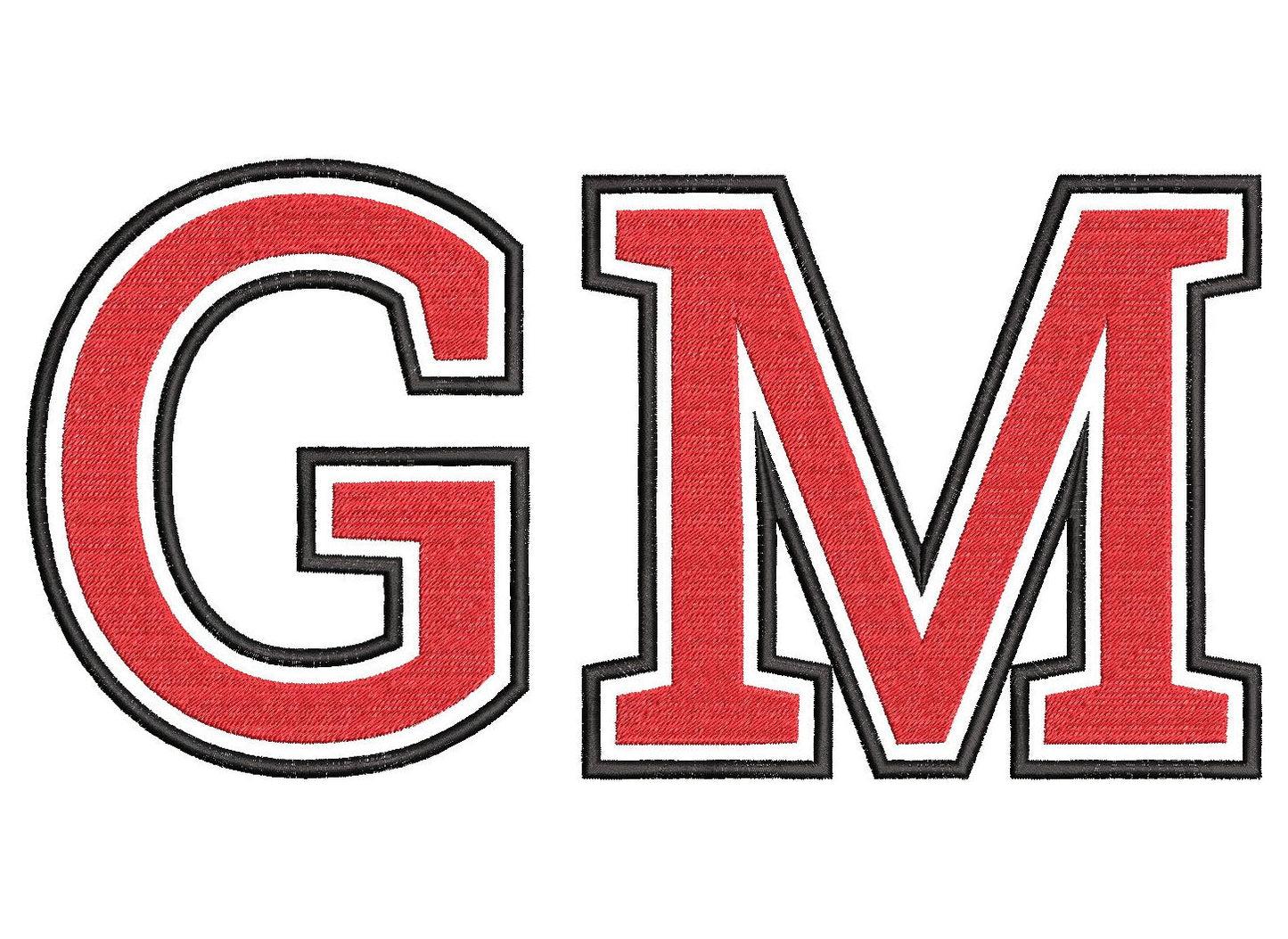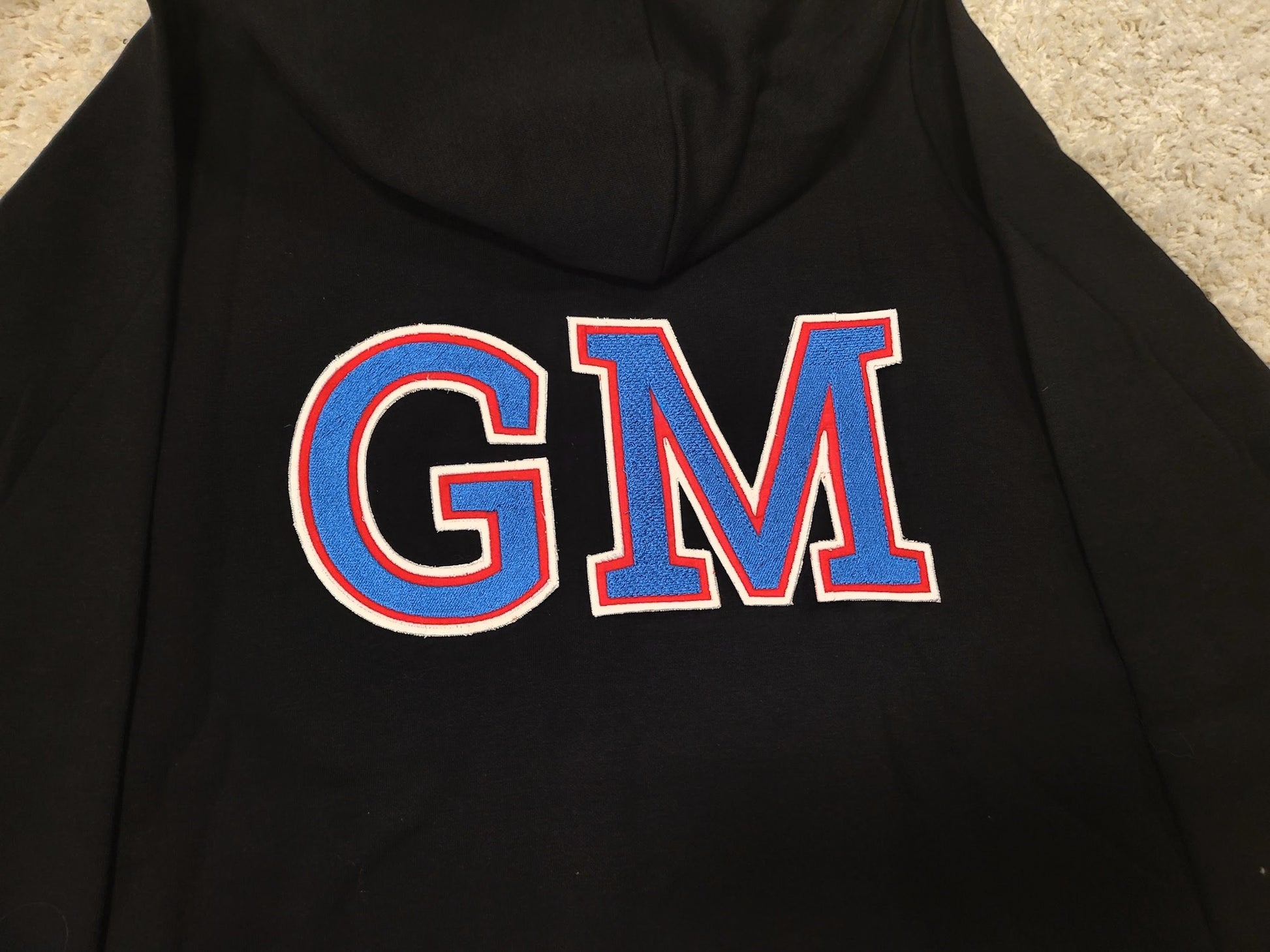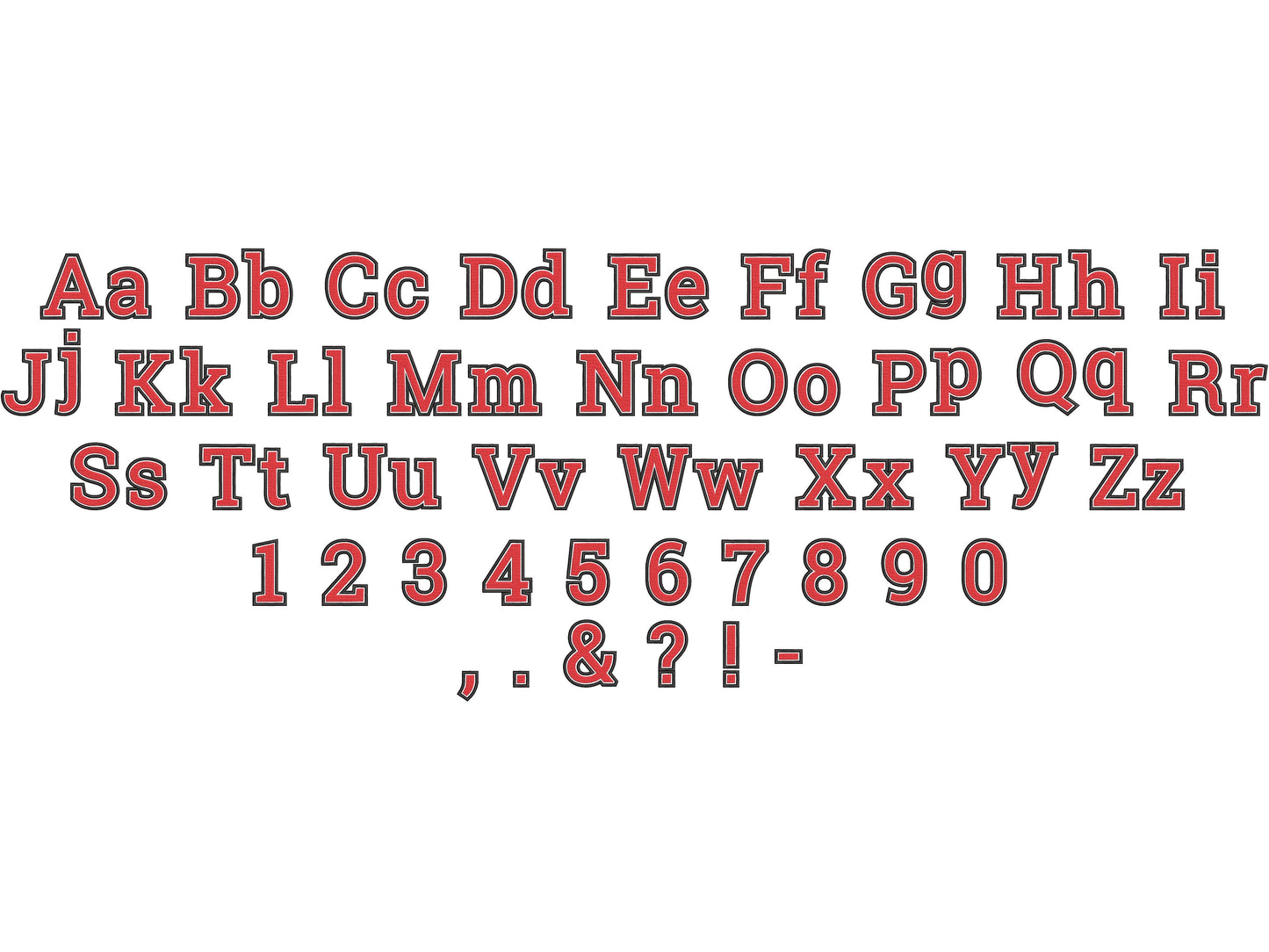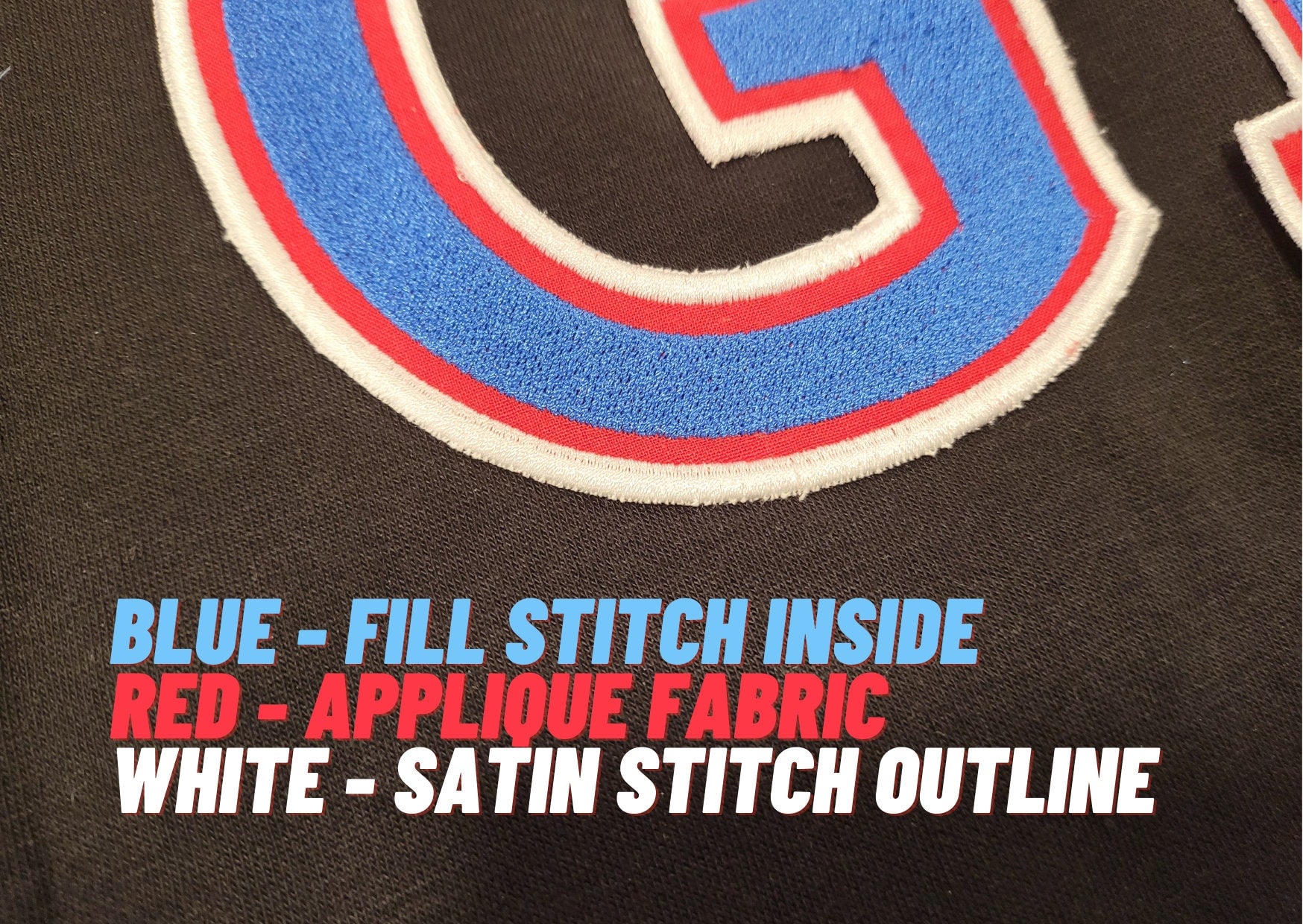
Big Double Layers Applique Font
Or click to open the linkA big athletic font with two layers: applique below and fill stitch on top. Made for team shirts, jerseys, hoodies and sports bags.
Uppercase and lowercase letters, numbers 0 to 9 and punctuation. Six sizes: 2.8, 3.5, 4.4, 5.3, 5.9 and 6.8 inches. The applique layer has a wide satin outline.
- Double layer applique and fill font
- Uppercase, lowercase, numbers 0 to 9, punctuation